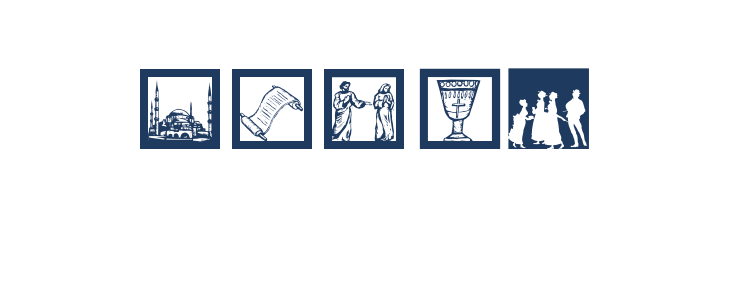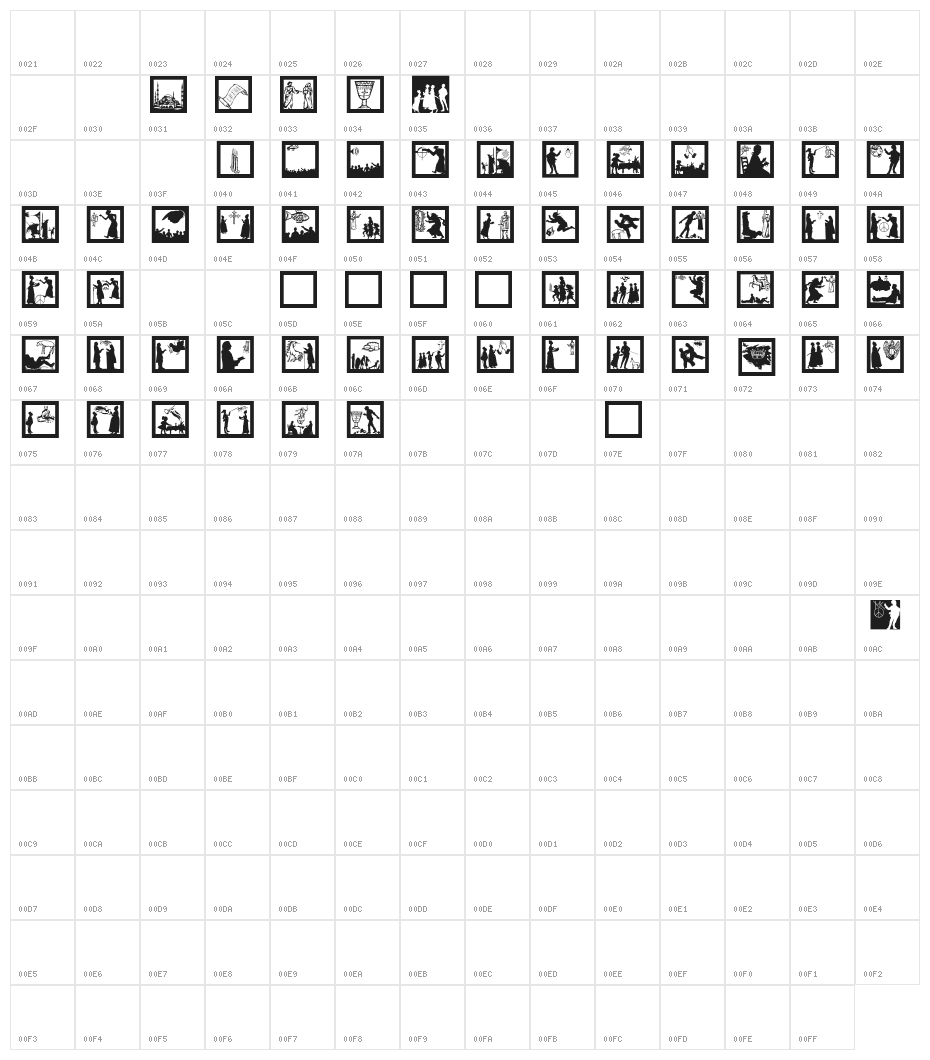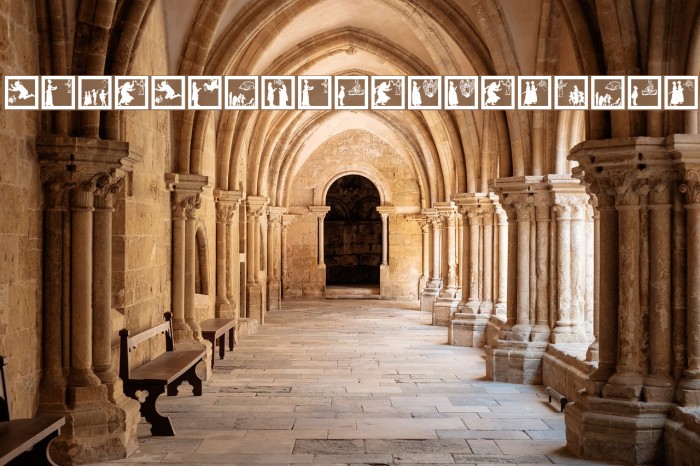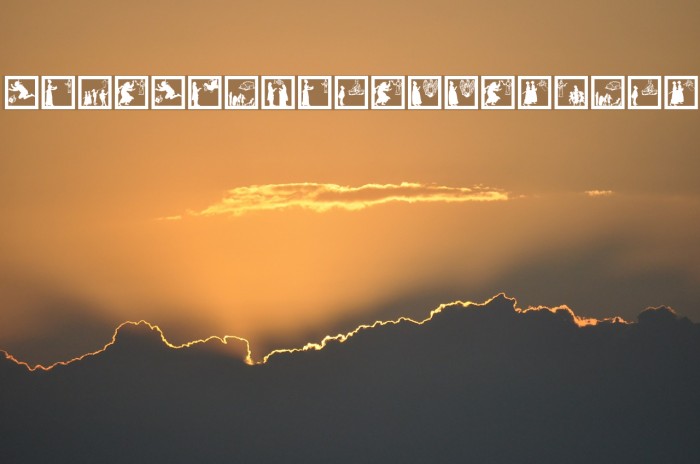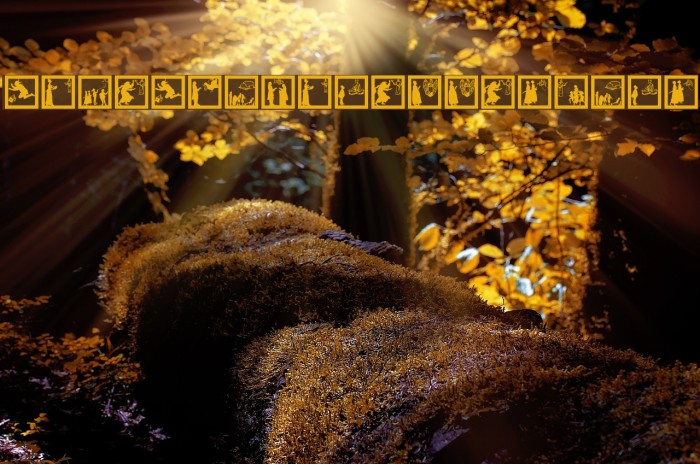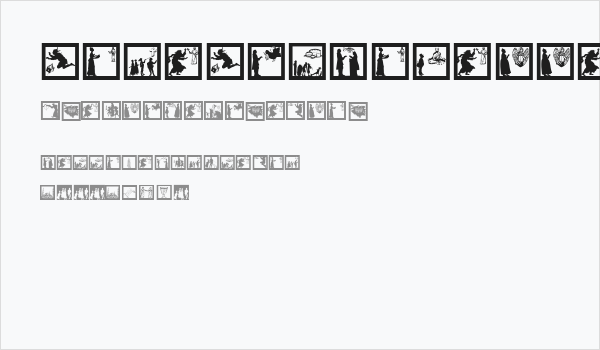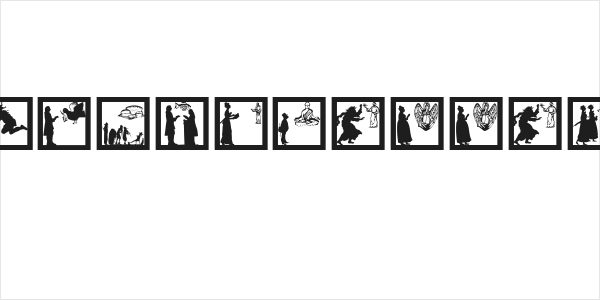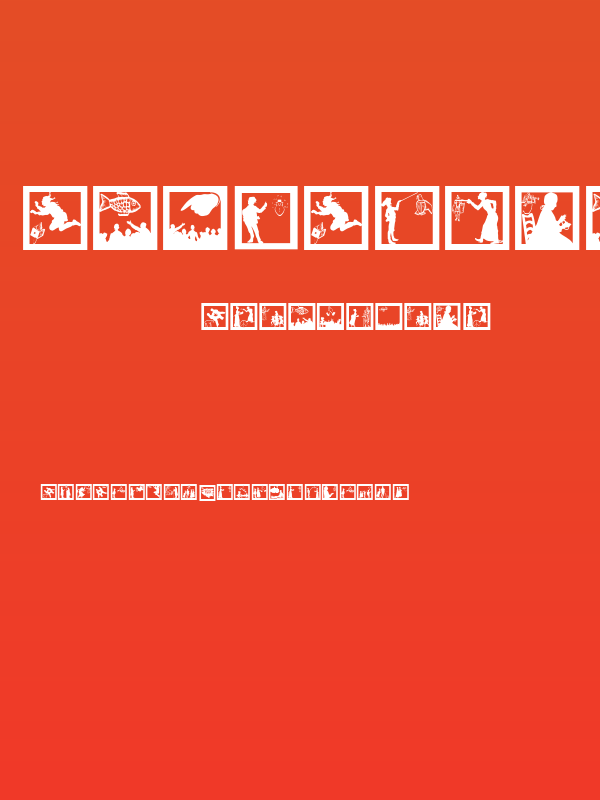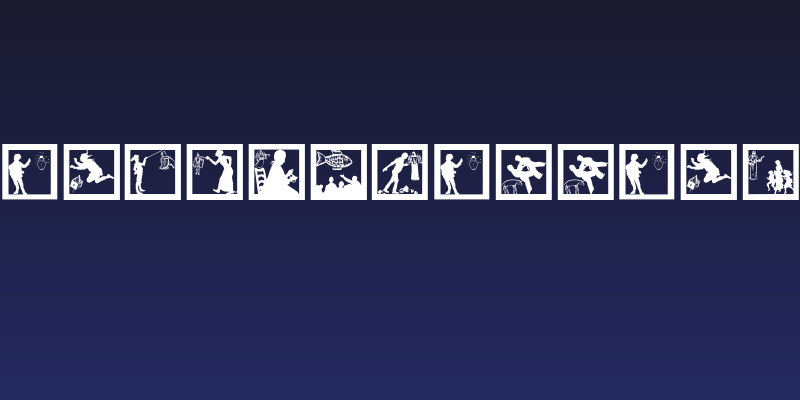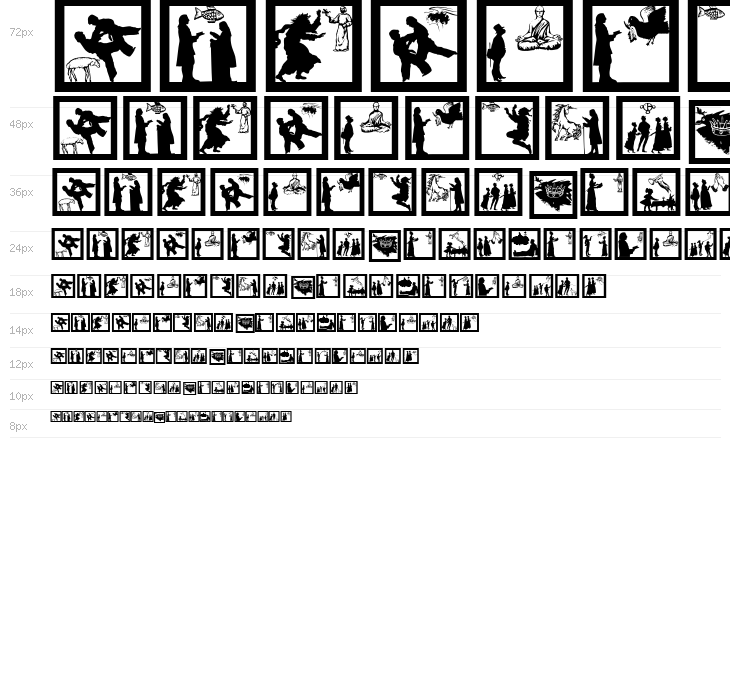
SomeSilhouettesPlus Font
SomeSilhouettesPlus Description
A decorative display font featuring detailed black-and-white silhouette illustrations within square frames, each character representing a unique scene or figure, evoking a vintage or storybook feel.
| Overall Style | Decorative, Vintage, Storybook |
| Use Case | Headlines, Decorative elements, Themed graphics |
| Proposed Projects | ChildrenΓ’β¬β’s books, posters, invitations, themed event materials, educational resources, decorative headlines. |